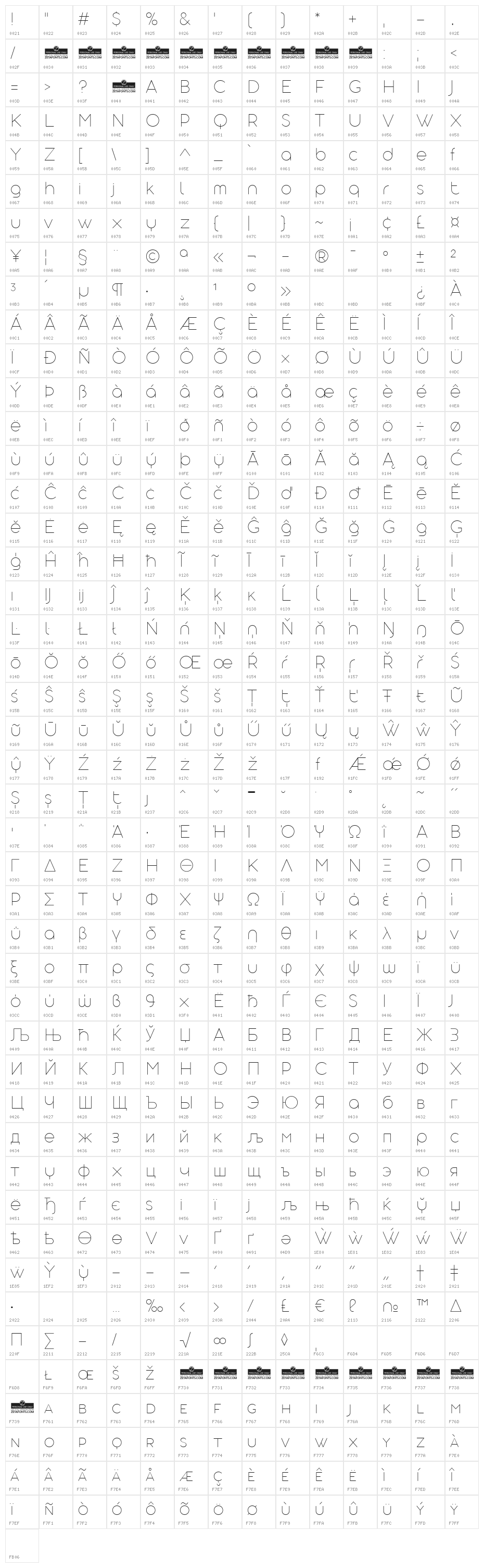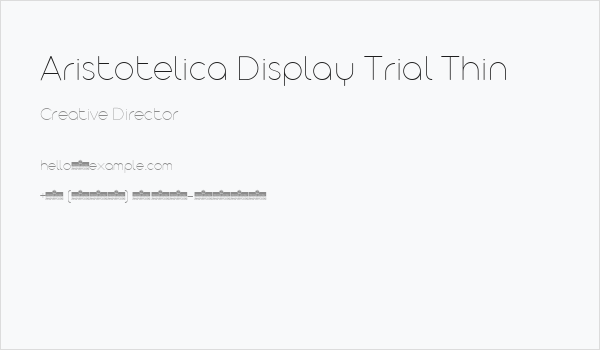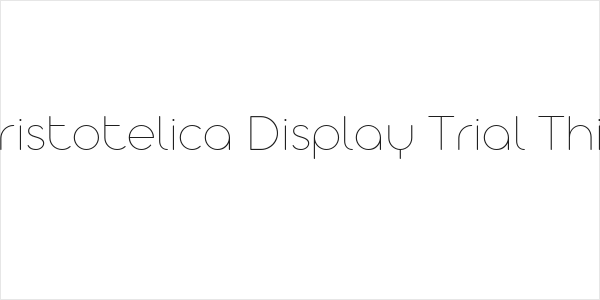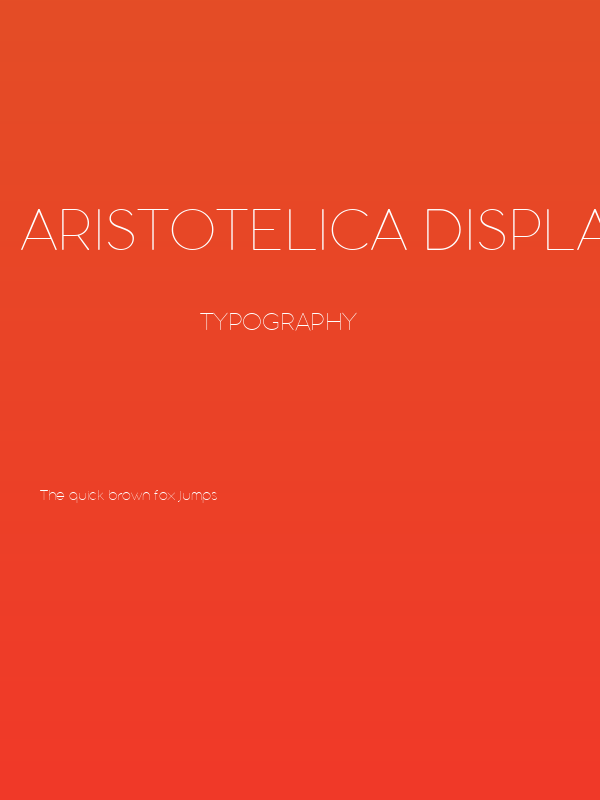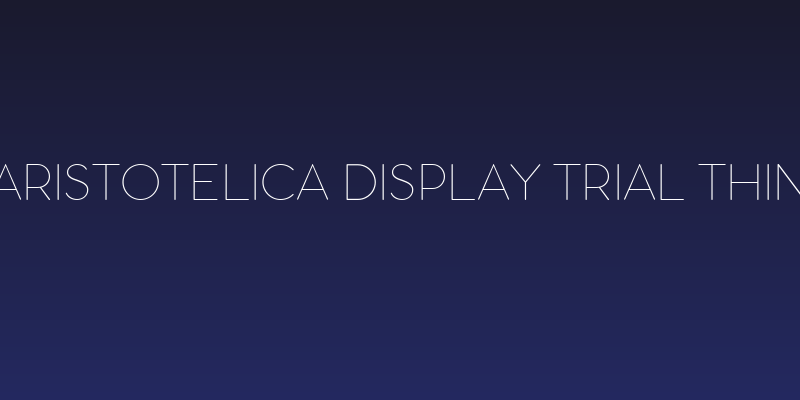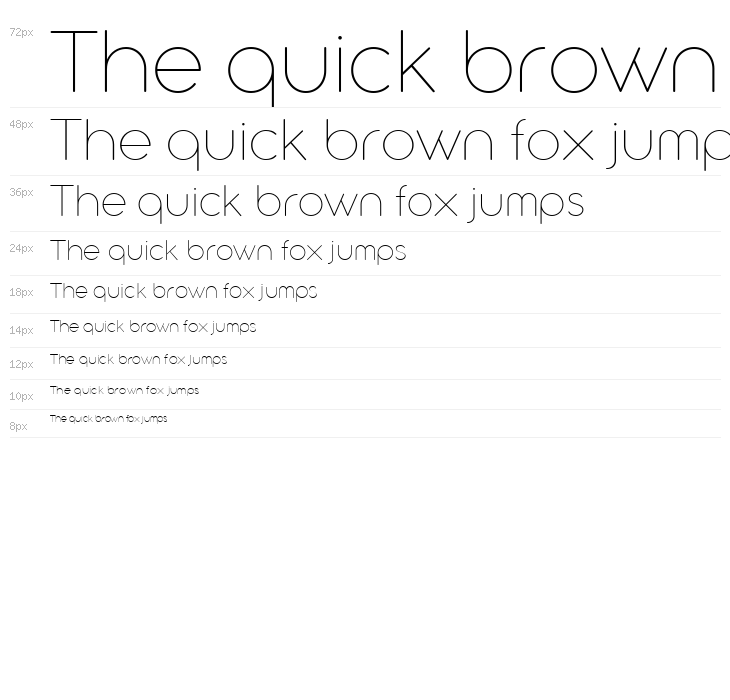
Aristotelica Display Trial Thin Font
Aristotelica Display Trial Thin Description
This font exhibits a sleek and modern aesthetic with its thin, clean lines and geometric shapes. The uppercase and lowercase letters maintain a consistent height, contributing to a uniform appearance. The characters are crafted with minimal contrast, emphasizing simplicity and elegance. The rounded edges and open counters enhance readability, making it suitable for various design applications. The numerals and special characters are designed with the same minimalist approach, ensuring a cohesive look across all elements.
| Proposed Projects | Ideal for branding, modern web design, minimalist posters, and editorial layouts. |